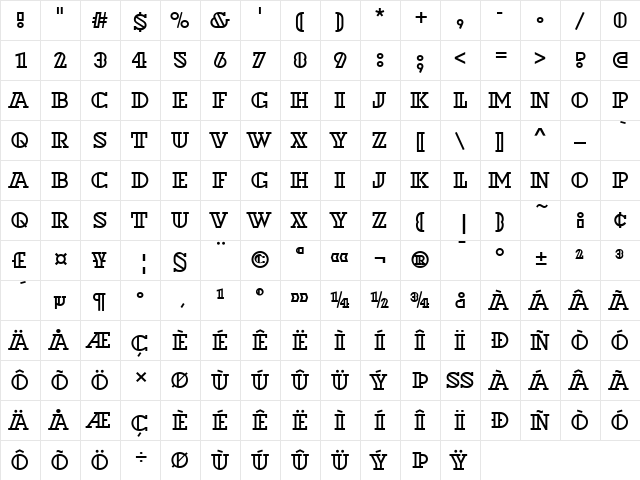
Dextor Outline D Regular
Design Context for Dextor Outline D Typeface
Dextor Outline D brings ornamental detail and strong personality to headlines and identities, where visual impact matters more than quiet functionality.
Font Pairing: Pair with a clean neutral sans-serif for body copy to let Dextor Outline D's character lead without overwhelming the composition.
Pro Tip: Treat Dextor Outline D as the centrepiece of your typographic hierarchy. One strong heading set in a decorative face can carry an entire layout.